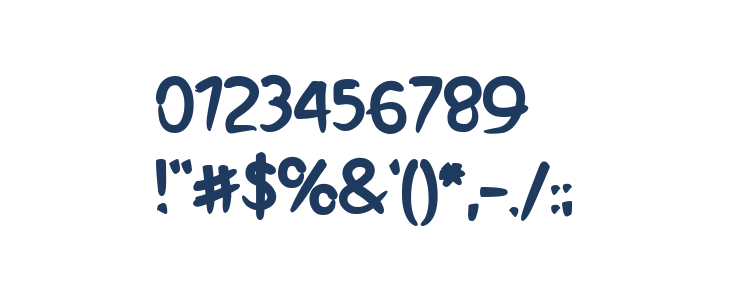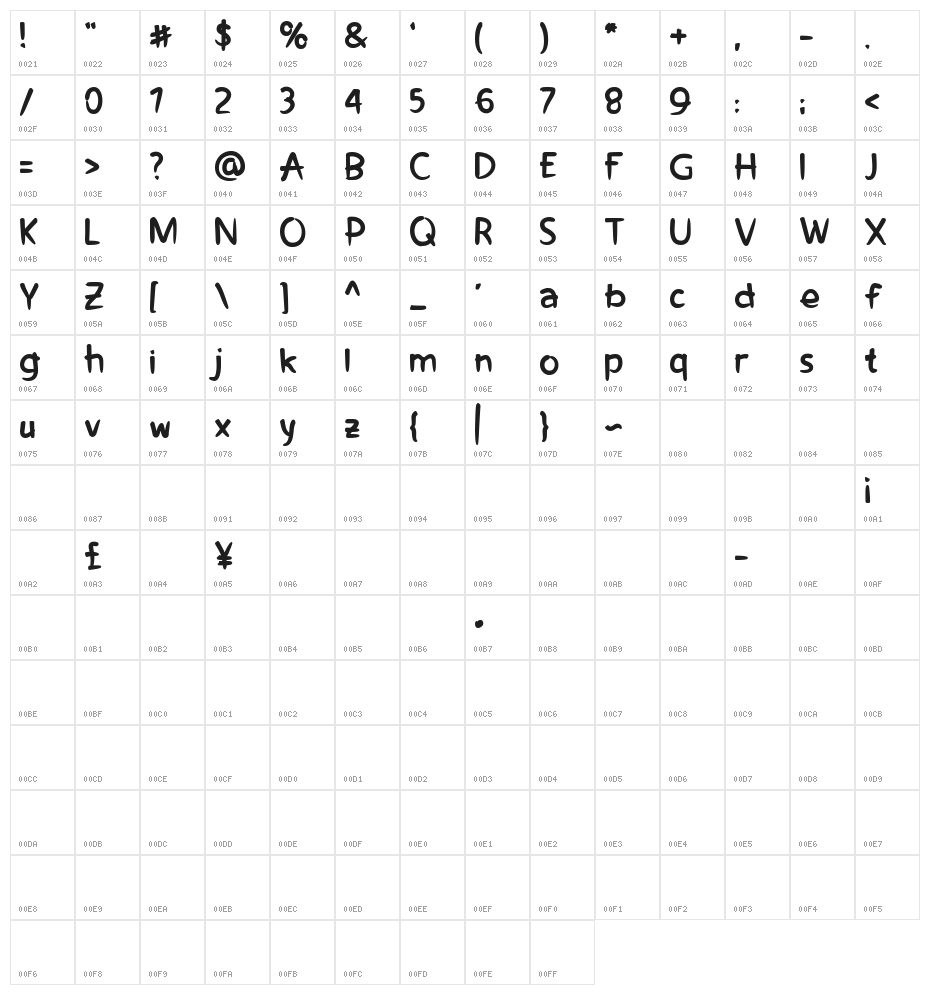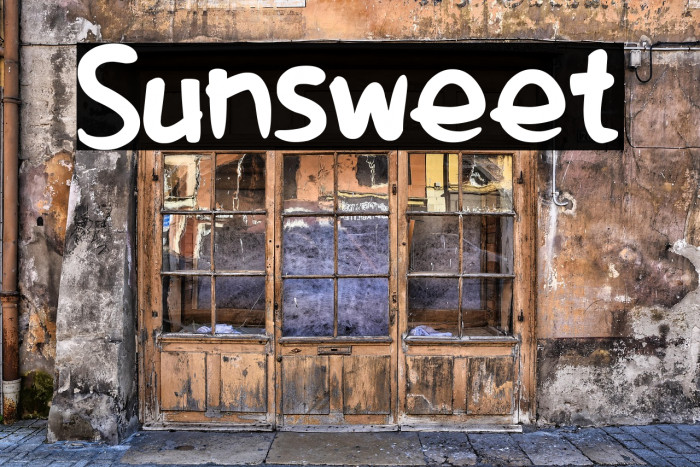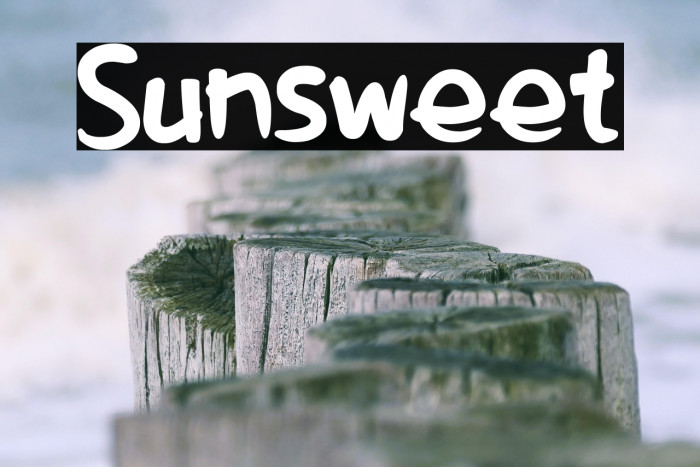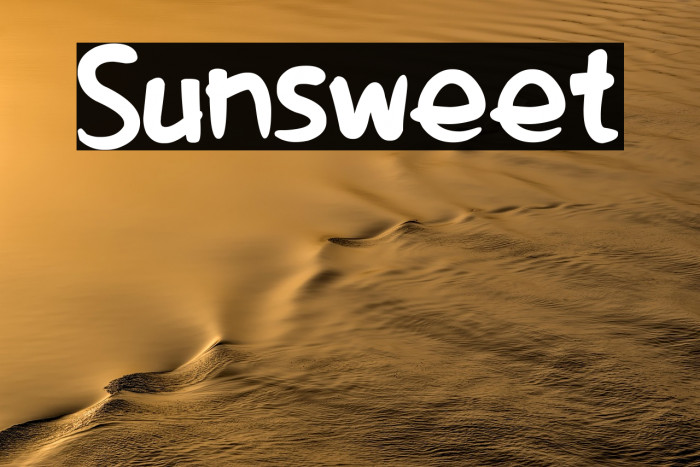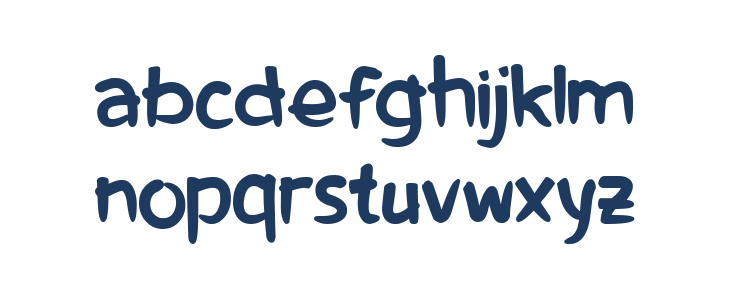
Sunsweet Font
Sunsweet Description
This playful and bold font features a handwritten style with a casual and friendly appearance. The letters are rounded and slightly irregular, giving it a whimsical and approachable feel. The uppercase and lowercase letters maintain a consistent flow, while the numbers and special characters complement the overall style. Its thick strokes and smooth curves make it highly legible, even at smaller sizes. This font is perfect for projects that require a personal touch or a fun, informal vibe.
Overall StylePlayful
Use CaseHeadlines, Logos, Informal Text
Proposed ProjectsIdeal for children's books, greeting cards, playful branding, and social media graphics.